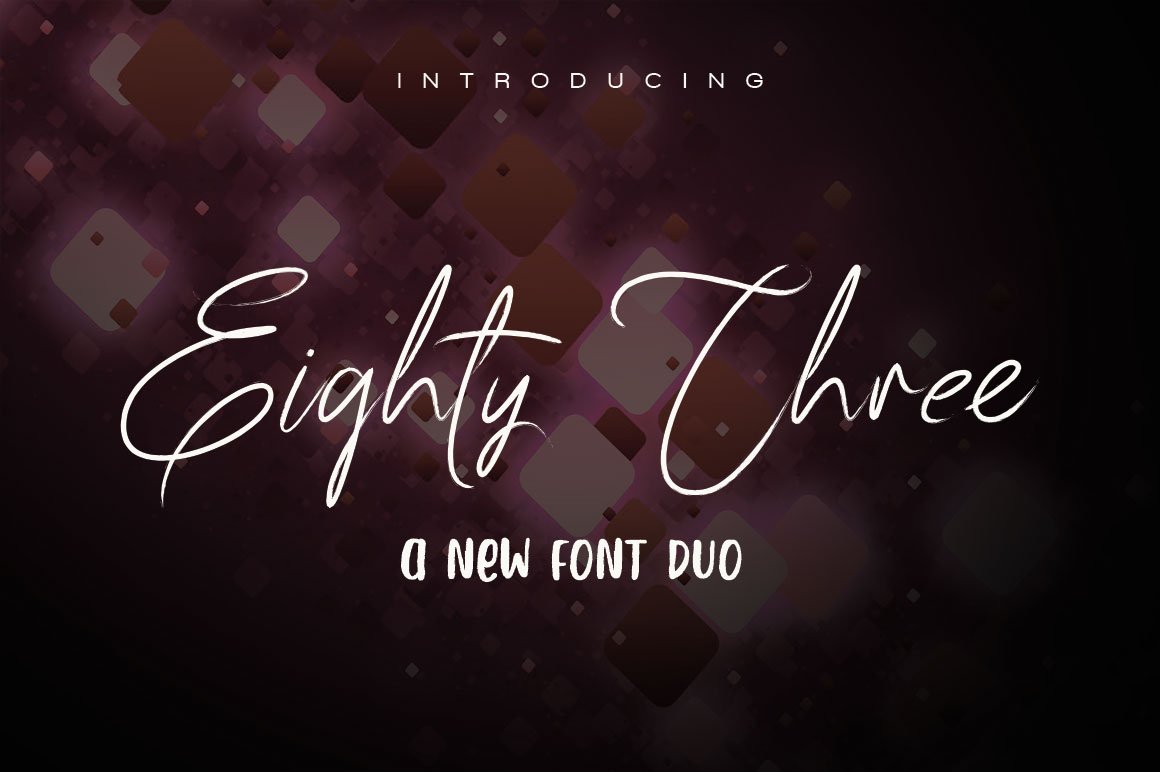
The Perfect Blend of Style and Substance: 83 Script Font
Have you ever sat down to create a logo or branding for a new project, only to find yourself struggling to capture the perfect tone? You want it to be elegant, yet approachable; sophisticated, yet down-to-earth. That’s where the 83 Script Font comes in – a clean, classy signature style font duo that’s sure to elevate your design game.
Comprising of 83 Script and 83 Sans, this versatile font duo is perfect for a wide range of applications, from business cards and letterheads to website headers and social media graphics. What sets it apart is its unique blend of fluidity and natural charm, making it an invaluable tool for designers looking to add a touch of personality to their work.
83 Script Font Key Features
- Font Family: 83 Script Font is a unique, handwritten script font designed for creative and artistic purposes.
- Unique Characteristics: The font features an elegant, flowing script style with subtle variations in letterforms, making it ideal for creating a personal and creative touch in designs.
83 Script Font Review
When I first laid eyes on 83 Script Font, I was immediately drawn to its elegant, handwritten feel. ✨ The font’s subtle flourishes and connecting strokes give it a personal, touchable quality that’s perfect for invitations, signage, and other designs where a human touch is desired.
One of the standout features of 83 Script Font is its versatility. ✨ It works beautifully for both short and long texts, and its open shapes make it easy to read even at smaller font sizes. Additionally, the font’s bold and italic styles add an extra layer of depth and interest to your designs.
However, I do have a few concerns about 83 Script Font. ⚠️ For one, the font’s consistency can be a bit hit-or-miss. Some letters may appear a bit too loose or irregular, which can affect the overall aesthetic of your design. Additionally, the font’s lack of a condensed or narrow version can make it difficult to work with in situations where space is limited.
Overall, I would give 83 Script Font a solid 3.5 out of 5 stars. While it’s a beautiful font with a lot of potential, its limitations hold it back from being a truly top-tier choice.
- Elegant, handwritten feel
- Subtle flourishes and connecting strokes
- Works well for invitations, signage, and other designs
- Versatile and easy to read
- Bold and italic styles
- Lack of condensed or narrow version
- Inconsistent letter spacing
Tip: Use the 83 Script Font for headings and titles to add a touch of elegance to your designs.
Tip: Use the 83 Script Font for typography-based designs, such as quotes, poems, or song lyrics.
Tip: Use the 83 Script Font for titles, headings, and emphasis in presentations and documents.
The 83 Script Font is ideal for:
- Birthdays and celebrations
- Quote and poem designs
- Typography-based art and graphics
Remember to use the 83 Script Font in moderation to avoid overwhelming your design.
83 Script Font is a unique and elegant script font, but sometimes designers need alternatives to achieve a similar look or to suit different design requirements. Here are 4 alternatives to 83 Script Font:
Carolyna Pro is a luxurious script font that resembles 83 Script Font in terms of elegance and sophistication. It’s perfect for creating high-end branding materials, invitations, and wedding designs. Carolyna Pro has a more refined look compared to 83 Script Font, with cleaner lines and a more precise feel.
Great Vibes is a modern script font that’s ideal for creating eye-catching headlines and titles. It’s a bit more playful and dynamic than 83 Script Font, making it perfect for designs that require a sense of energy and movement. Great Vibes is a great alternative when you need a script font that’s a bit more laid-back and casual.
Can I customize the 83 Script Font?
Yes, you can customize the 83 Script Font to some extent. However, due to the font’s design and structure, some modifications may not be possible. You can try adjusting the font size, color, and style using your design software. Additionally, you can also try using font editing software, such as FontForge or FontLab, to make more advanced modifications.